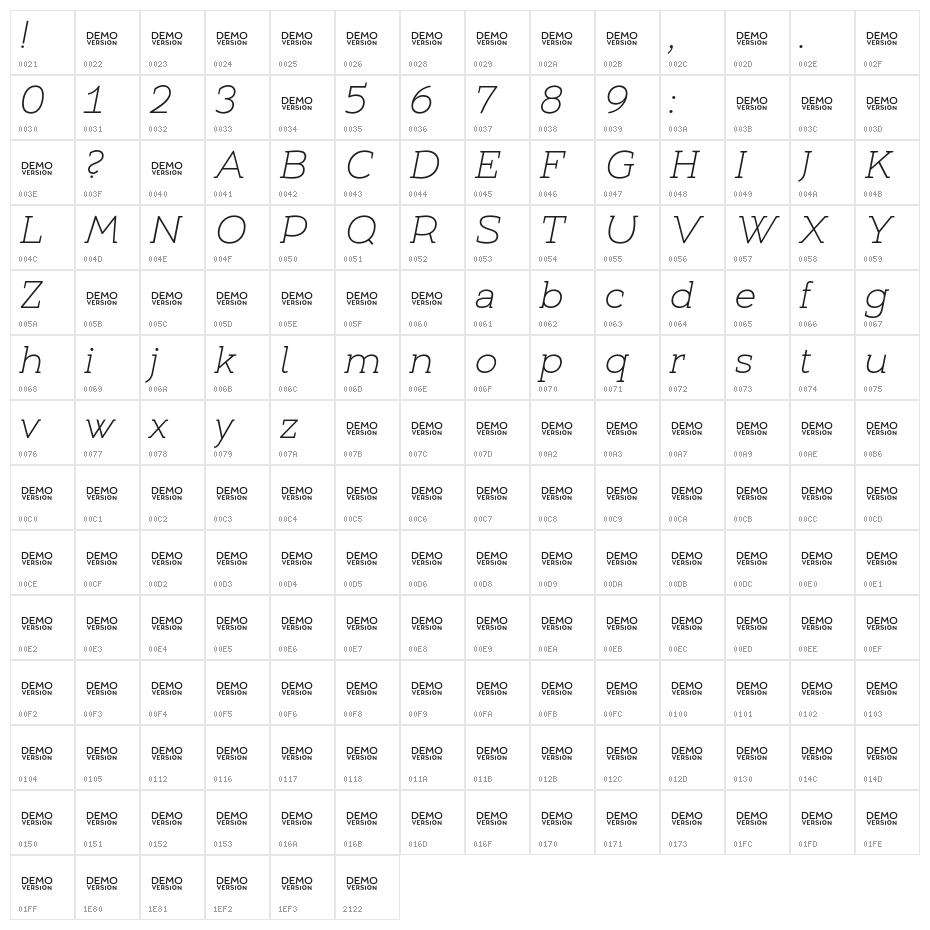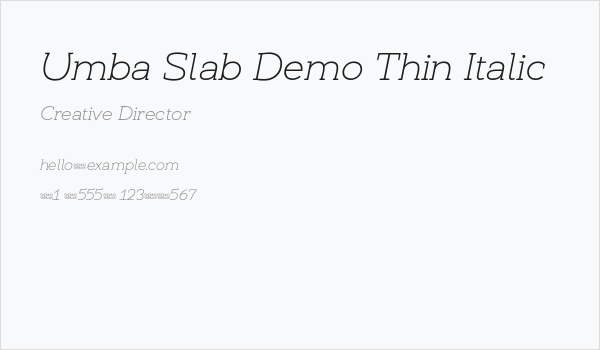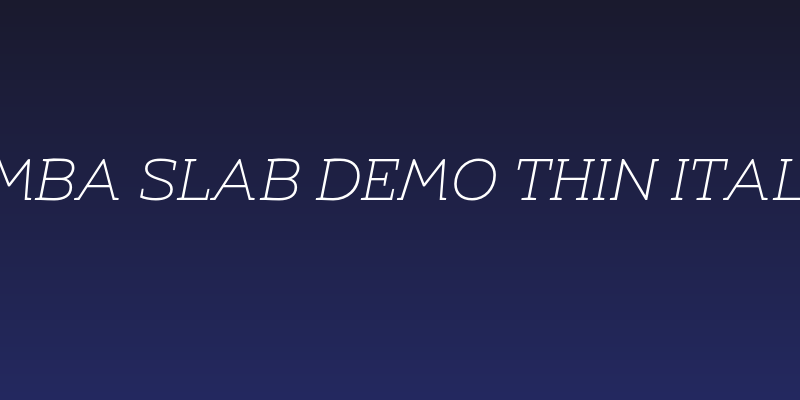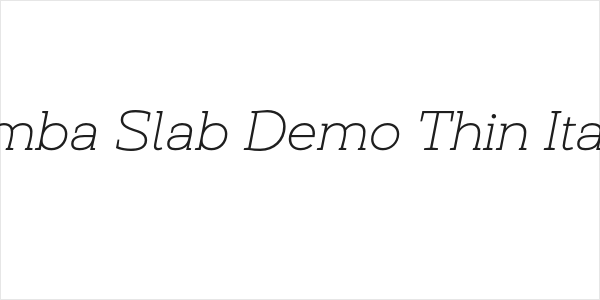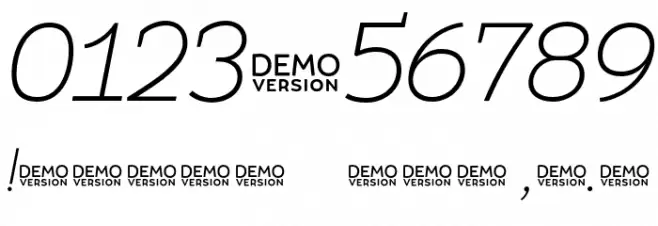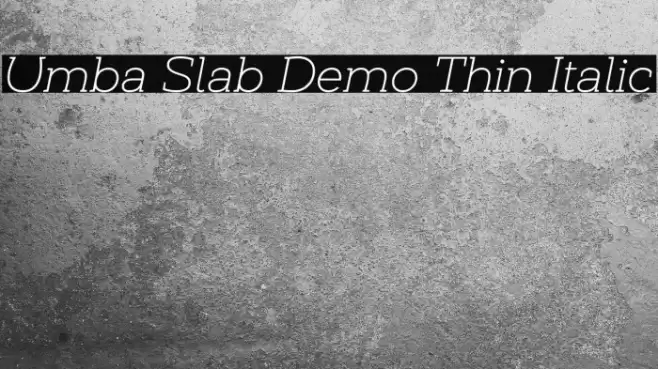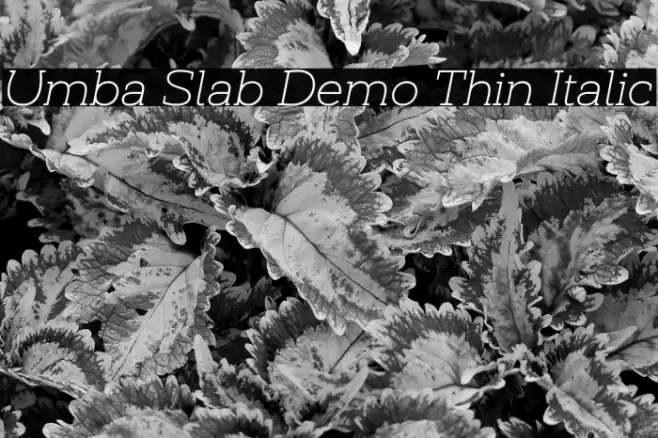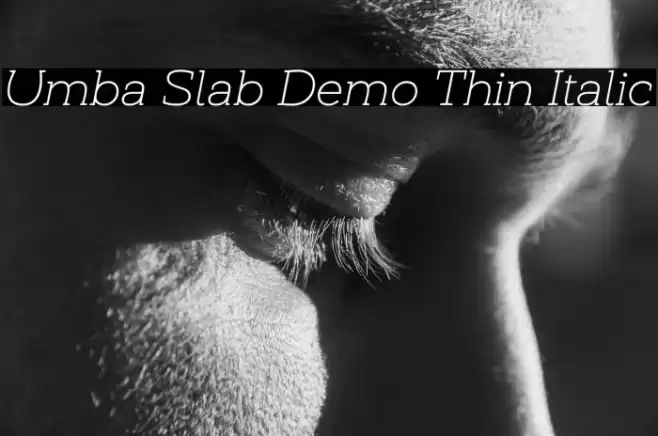
Umba Slab Demo Thin Italic Font
Umba Slab Demo Thin Italic Description
This elegant typeface features a refined and sophisticated design, characterized by its thin strokes and italicized form. The letters are crafted with a modern sensibility, offering a sleek and stylish appearance. The font maintains a consistent slant throughout, enhancing its dynamic and fluid look. Its thin weight provides a delicate touch, making it ideal for projects that require a subtle yet impactful visual presence. The characters are well-proportioned, with a slight emphasis on verticality, giving it a graceful and airy feel. The font's clean lines and minimalistic approach make it versatile for various design applications.
| Use Case | Headlines, Logos, Editorial design |
| Proposed Projects | Ideal for fashion magazines, luxury branding, elegant invitations, and modern editorial layouts. |